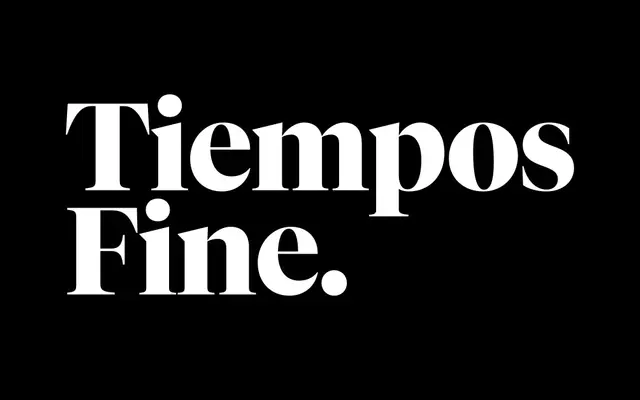
Tiempos Fine
The sharpest optical cut in the Tiempos system, with high contrast and crisp terminals tuned for large editorial and fashion headlines.
The display optical size in the Tiempos system, drawn by Kris Sowersby and Noe Blanco. Six weights from Light to Black with italics keep the proportions and letterfit of Tiempos Headline, then push contrast and terminal sharpness for use at the largest sizes. A weight-axis variable font is supplied with the full family. Editorial covers, fashion mastheads and luxury display work where Tiempos Headline starts to feel slightly soft.
Klim classifies it as Modern: Transitional/Realist; the sharpest optical size in the Tiempos system, keeping the proportions and letterfit of Tiempos Headline while intensifying the interplay between warm curves and sharp details.